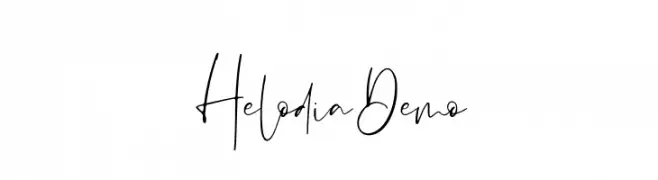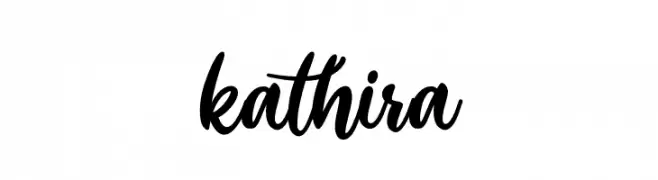
A bold, playful handwritten font with rounded strokes and a casual style.
A bold, decorative font with a medieval, gothic flair and unique embellishments.
A flowing, cursive font with elegant loops and artistic flair.
An elegant, flowing script font with smooth, cursive strokes.
A playful and bold font with whimsical, irregular shapes.
A bold, playful font with rounded, hand-drawn letterforms.
A playful, bold, and rounded script font with a whimsical and friendly style.
An elegant, flowing script font with smooth, cursive lines and graceful curves.
A playful, whimsical script font with flowing, interconnected letters.
A modern, handwritten font with elegant, flowing cursive characters.